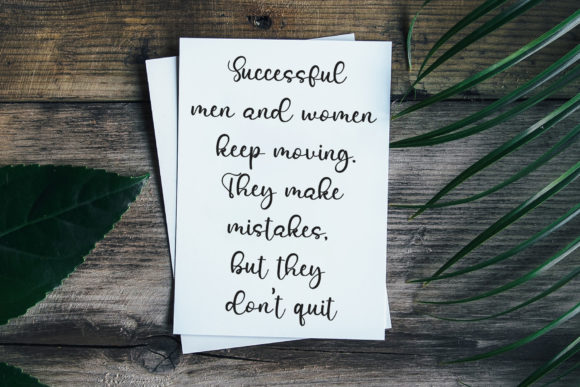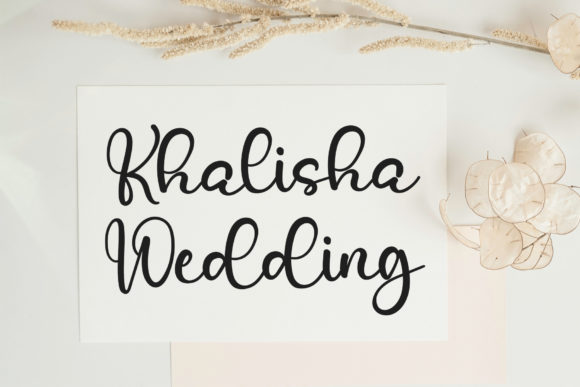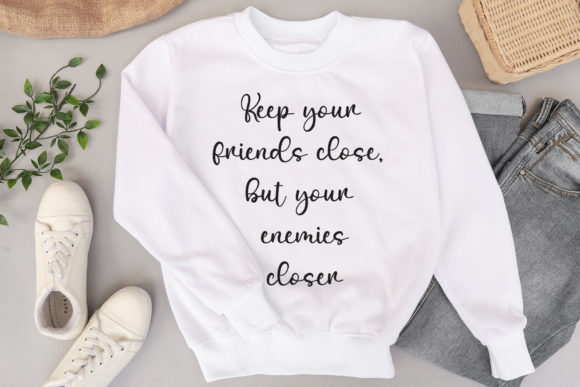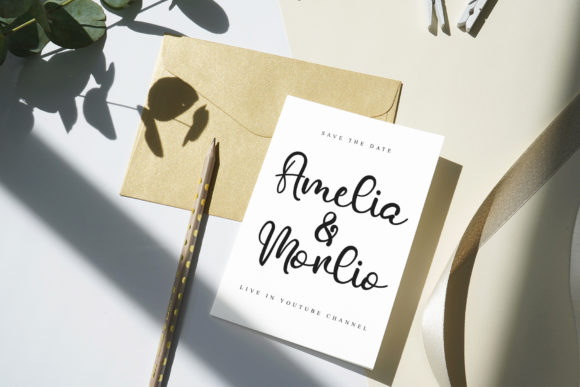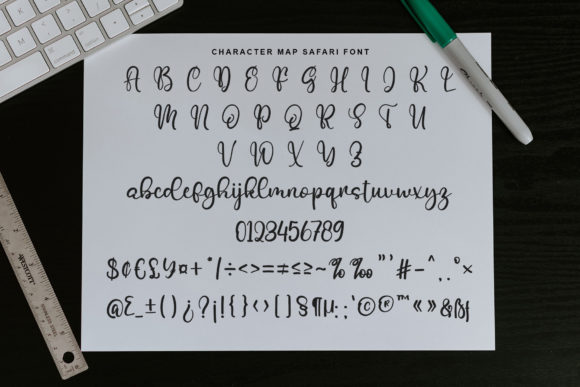
About Safari Font
“Safari” is a sweet, all-round, and flexible handwritten font designed to infuse warmth, romance, and a sense of joy into your creative projects. With its versatile and charming qualities, this font has the ability to transform each of your project ideas into genuine works of art. Notably, “Safari” is PUA encoded, granting you easy access to all the glyphs and swashes for added creative flexibility.
The sweet and all-round nature of “Safari” makes it a delightful choice for a variety of design applications. Picture this font enhancing wedding invitations, where its romantic and jolly demeanor adds a touch of warmth to the celebration. The versatile and flexible style ensures that “Safari” adapts effortlessly to different themes and design elements.
In branding projects, “Safari” becomes a standout font, infusing your visual identity with a charming and approachable character. The font’s flexibility allows it to resonate with diverse audiences, creating a memorable and joyful impression for your brand.
For any project where a touch of sweetness and warmth is desired, “Safari” stands out. Its handwritten style adds a personal and artistic flair, making it perfect for turning your creative ideas into genuine works of art.
As you integrate “Safari” into your projects, explore its sweet, all-round, and flexible qualities. Whether you’re working on print or digital media, this font stands as a charming and versatile choice to bring joy and warmth to your designs, ensuring that each project becomes a true work of art.